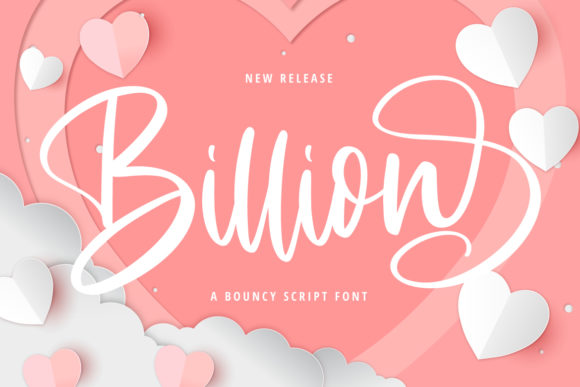
The Billion Font: A Modern Handwritten Favorite
I’ll never forget the design moment when I stumbled upon the Billion font. I was working on a wedding invitation project, and my client was adamant about having a unique, handwritten font that would make their special day feel truly personal. As I scrolled through font after font, I found myself falling into the trap of choosing something familiar yet bland. That was until I discovered Billion – a modern handwritten font that instantly captured my heart. In this article, I’ll share my experience with Billion, its features, and how to make the most of it in your designs.
An Honest Review of Billion Font
- ✨ Casual Charm: Billion’s casual vibe makes it wonderfully down-to-earth and readable, perfect for a wide range of design projects.
- ✅ PUA Encoding: The font is PUA encoded, making it easy to access and use a variety of glyphs and alternates.
- 💫 Smooth Lines and Glyphs: The font features smooth lines, gorgeous glyphs, and stunning alternates that add a touch of elegance to any design.
- 🎨 Versatility: Billion is incredibly versatile, making it suitable for crafting designs, silhouettes, wedding projects, cutting, and Cricut projects.
While Billion is an amazing font, there are a few minor quirks to be aware of:
- 🤔 Learning Curve: With so many glyphs and alternates available, it may take some time to get familiar with the font’s features.
The Designer Inspiration Behind Billion
According to its creators, Billion was designed to capture the essence of modern handwriting. The font’s casual charm and smooth lines were inspired by the imperfections and uniqueness of handwritten text. The designers aimed to create a font that would feel approachable, yet elegant – perfect for a wide range of design projects.
Q: What is the Billion font best used for?
A: Billion is a versatile font suitable for crafting designs, silhouettes, wedding projects, cutting, and Cricut projects.